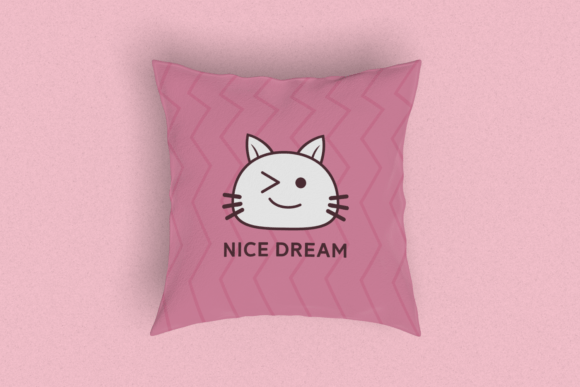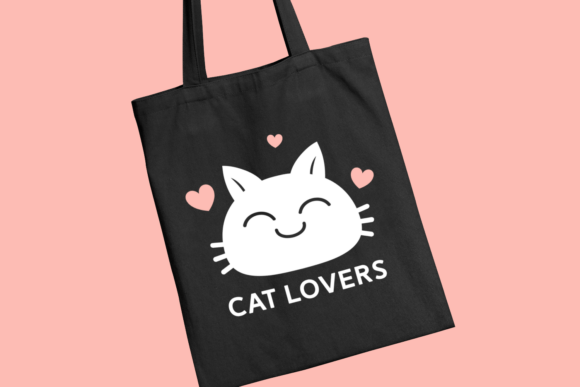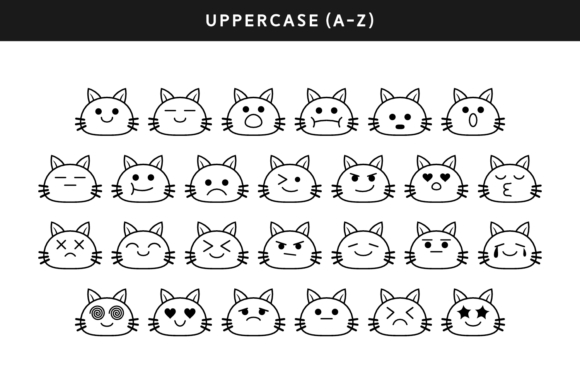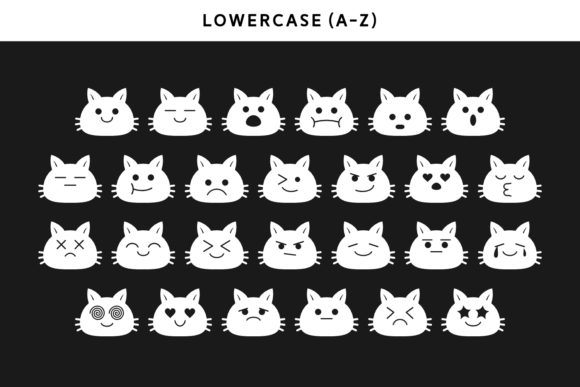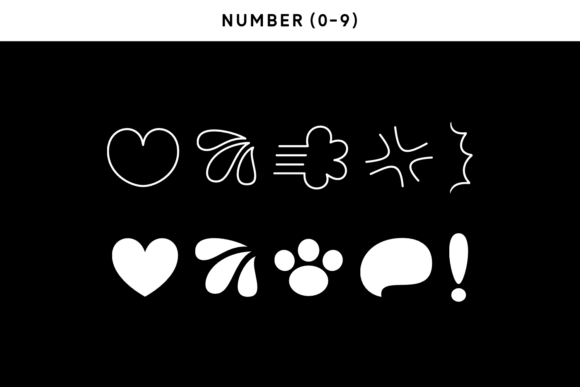
Introduction to Cute Catty Font
The “Cute Catty Font” is a charming and highly expressive dingbats typeface that stands out due to its focus on adorable feline faces.
The primary distinction of this font is the sheer variety and emotive range packed into its character set, providing a comprehensive library of cat expressions and styles It includes a complete set of characters mapped to the uppercase keys, which primarily feature outlined white cat faces with diverse, sweet, and playful expressions.